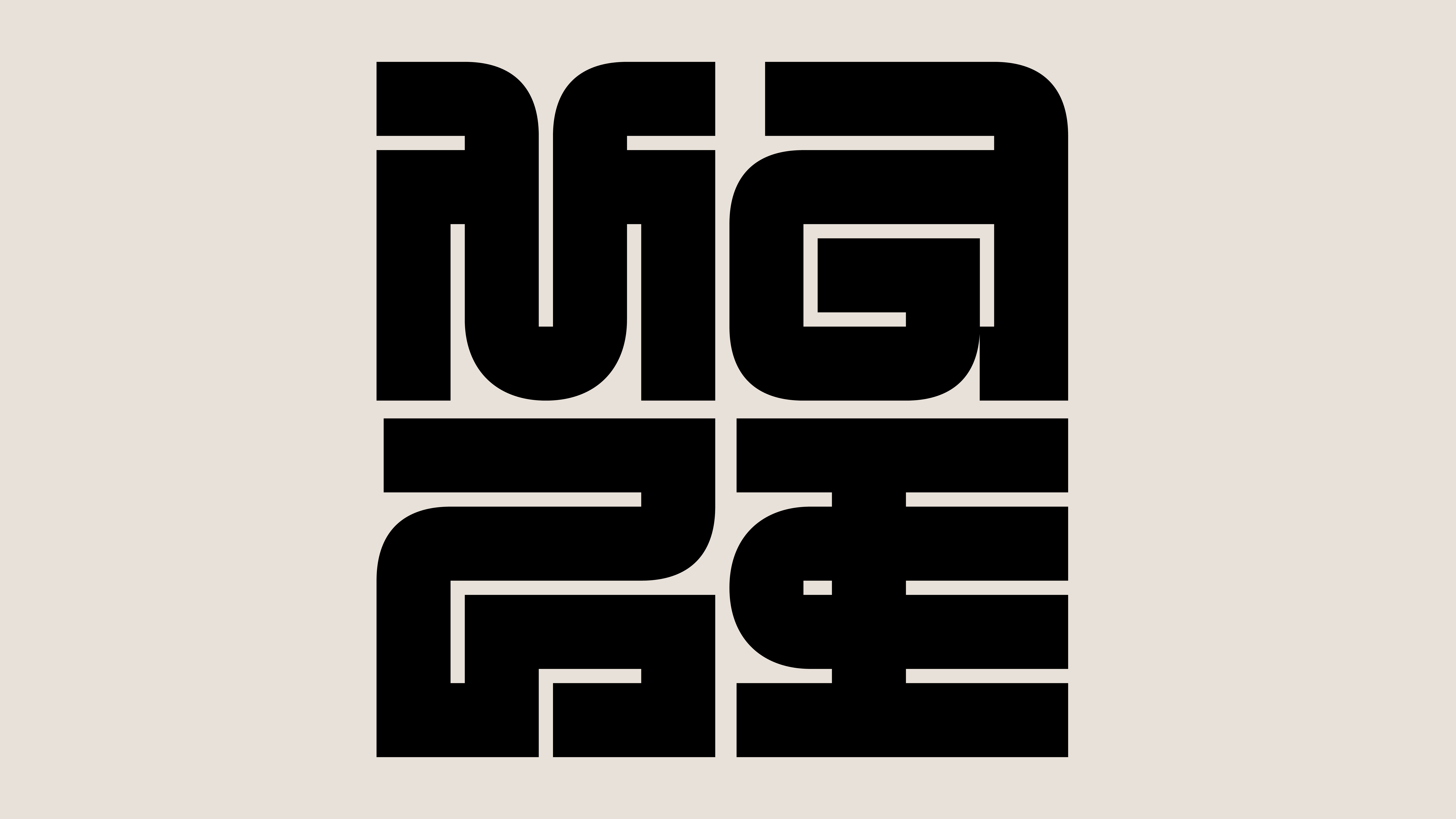
F37 Brutamo
F37 Brutamo takes Alisa Burzić’s signature glyph-contorting lettering styles and captures it in a font file.
A well balanced fusion of uni-case and mono-spaced, the typeface commands attention and encourages intrigue. The glyphs are all comprised of complex, but considered strokes giving a sense of intricacy while remaining legible. F37 Brutamo is uni-case in its proportions, but this does not limit the capability of the typeface. There are still both unique upper and lower case forms accessible to the user, allowing for flexibility built right into the keyboard.
F37 Brutamo
Alisa Burzić is a Fine Arts Bachelor. She currently resides in Belgrade, Serbia.
For the last 4 years, she’s been working in the graphic design field, mainly in logo and type design. The greatest influence on the form she frequently explores and uses in her designs comes from the interest in modernist architecture and antifascist monuments that were built in the period of Socialist Yugoslavia.
F37 Brutamo
Tell us about the inspiration behind your collaboration with F37®×. If it was an unused concept, what was the potential use case for it.
Inspiration for creating Brutamo typeface came from drawings of earlier lettering I created for the word Brutalist, which was based on an earlier letter R where I was experimenting with shapes, stripes, and line movements. I wanted to see if those stylistic features could work on other letters too and comprise a readable word. F37x collaboration opened an idea to expand it to an entire set of letters, numbers, and some symbols.
When starting the process of creating your font, what typographic conventions did you look to break or experiment with? Or were there conventions of functionality you championed?
The construction of Brutamo letterforms within a 4x4 grid of square proportions brought some unexpected solutions, such as unconventional joints in letters, making them appear playful and maze-like and thus breaking recognizable letter appearance.
Now that your typeface has launched, what would be your dream project to use your F37® typeface on?
I’d love to see it printed on a textile, or clothes, used for typographic posters or murals, or inside a video game.
What have you learnt through developing and creating your own typeface(s) with our F37® type designers?
I learned how valuable and important construction in designing the entire alphabet is, and also how wonderful collaborations can be.
How would you describe your typeface in three words?
Playful, eclectic, decorative